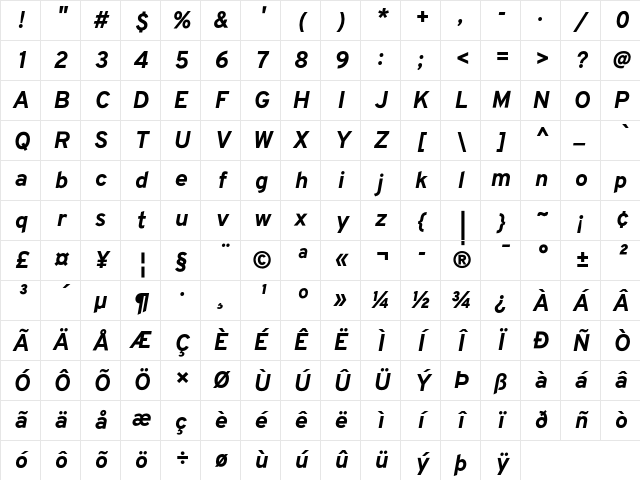
Complete Overpass NF Italic glyph index. Displaying only characters natively supported by Overpass NF Italic font.
Overpass NF is a composed and adaptable typeface that performs quietly and consistently across a wide range of design contexts. The slanted form adds forward momentum and visual energy.
Pro Tip: Use Overpass NF for emphasis, pull quotes, and subheadings where its slanted energy can add rhythm to the layout.